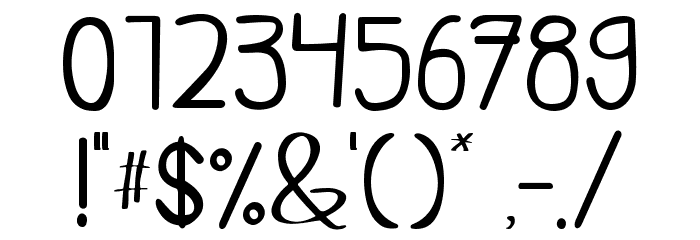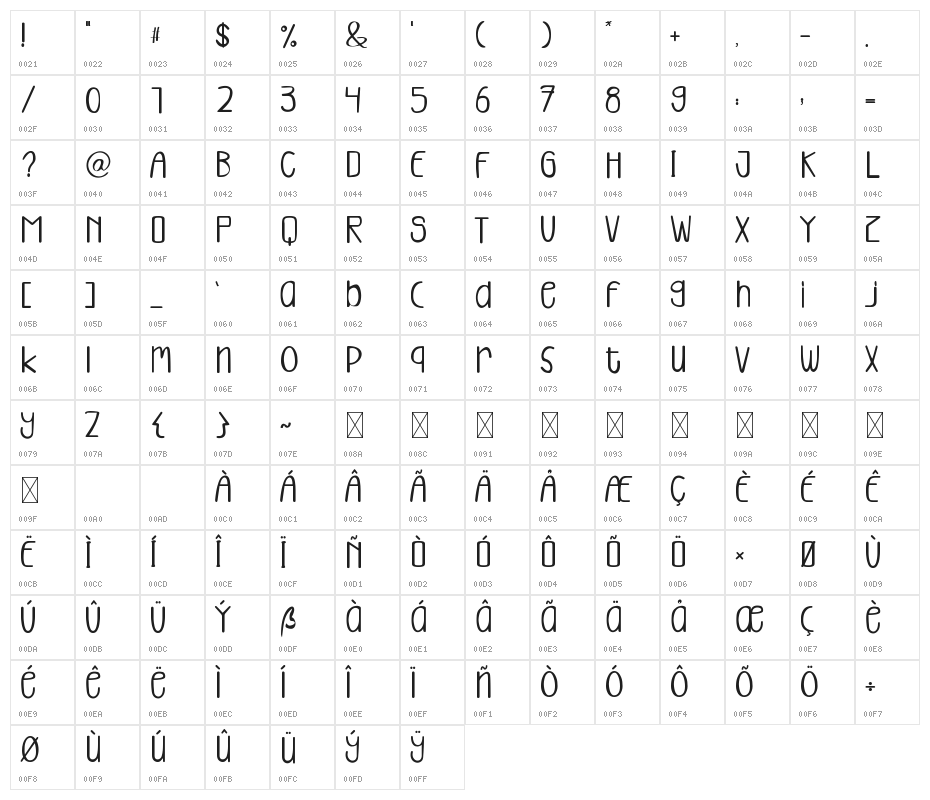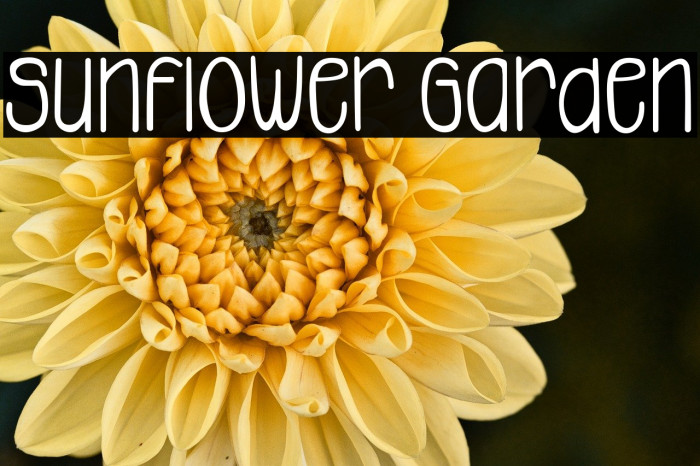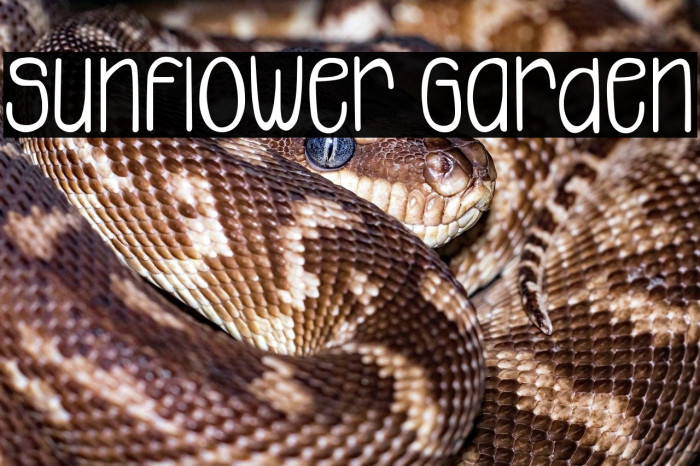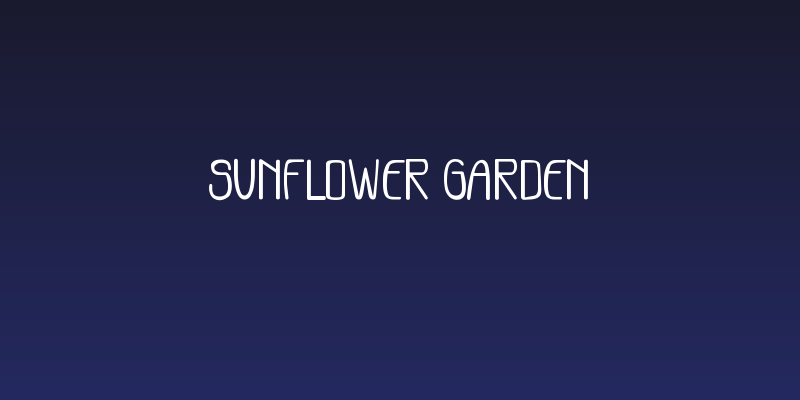
Sunflower Garden Font
Sunflower Garden Description
This font features a playful and rounded style, characterized by its smooth curves and slightly elongated letterforms. The uppercase and lowercase letters maintain a consistent flow, with a whimsical touch that adds a sense of fun and creativity. The numerals are clear and easy to read, complementing the overall design. Special characters are well-integrated, maintaining the font's cohesive look. This font's unique style makes it suitable for projects that require a friendly and approachable aesthetic.
| Proposed Projects | Ideal for children's books, greeting cards, playful branding, and creative posters. |